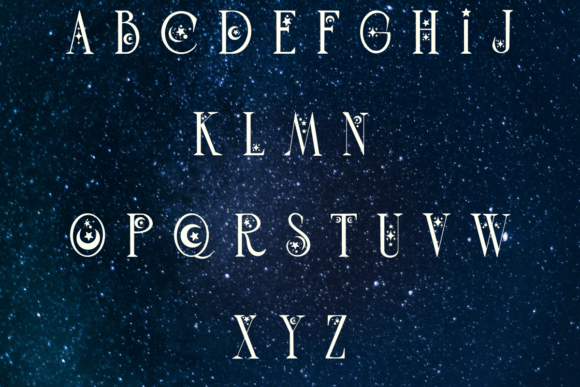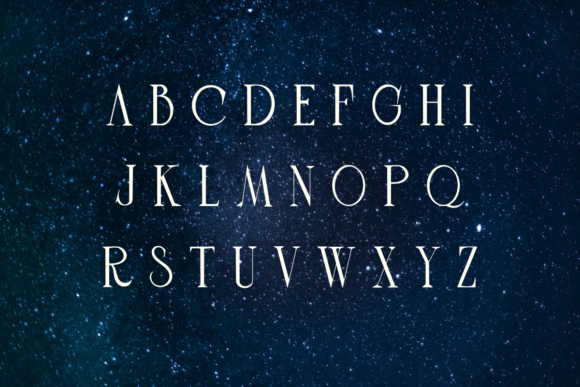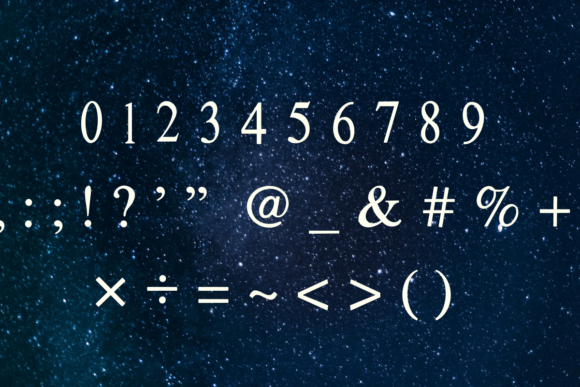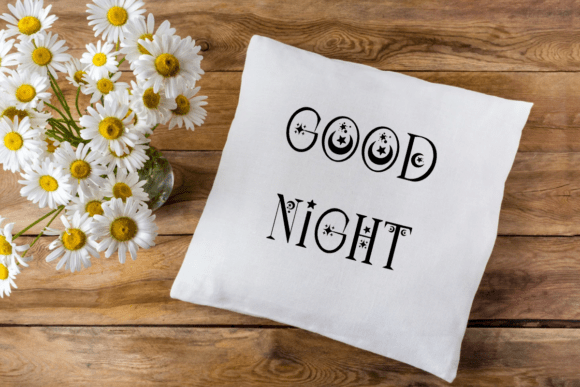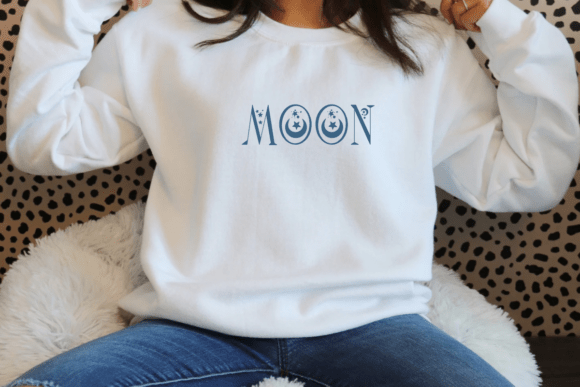
Celestial Pair Font: A Magical Decorative Font for Dreamy Designs
Are you looking for a font that can add a touch of magic to your designs? Look no further than the Celestial Pair Font, a beautiful and whimsical decorative font inspired by the wonders of the night sky. With its charming star, moon, and swirl details integrated into elegant serif characters, this font is perfect for a variety of creative projects.
A Font that’s Out of this World
Celestial Pair Font is a stellar way to add a cosmic touch to your designs. The font’s elegant serif characters are adorned with charming star, moon, and swirl details that evoke the magic and mystery of the night sky. Whether you’re working on a fantasy-themed project, creating a brand identity for an astrology business, or designing a children’s book, this font is sure to impress.
Perfect for Fantasy-Themed Projects
If you’re working on a fantasy-themed project, Celestial Pair Font is the perfect choice. The font’s whimsical and dreamy quality makes it ideal for creating magical and enchanting designs. Use it to create titles, headings, and body text for fantasy novels, games, or movies. The font’s elegant serif characters and charming details will transport your readers to a world of wonder and magic.
Astrology Branding Made Easy
For astrology businesses, Celestial Pair Font is a great way to create a brand identity that’s both elegant and mystical. Use the font to create logos, business cards, and website headers that reflect the magic and mystery of the stars. The font’s celestial details will help you connect with your audience and establish a brand that’s out of this world.
Delightful Children’s Books
Celestial Pair Font is also perfect for children’s books, particularly those with a fantasy or adventure theme. The font’s playful and whimsical quality will delight young readers and add a touch of magic to your story. Use it to create titles, headings, and body text that’s both fun and engaging.
Dreamy Invitations
And for crafters and party planners, Celestial Pair Font is a great choice for creating dreamy invitations that set the tone for a magical celebration. Use the font to create invitations for baby showers, birthday parties, or weddings that are both elegant and whimsical. The font’s celestial details will add a touch of romance and wonder to your designs.
Key Features of Celestial Pair Font
- Elegant Serif Characters: Celestial Pair Font features elegant serif characters that are both classic and sophisticated.
- Charming Celestial Details: The font’s charming star, moon, and swirl details add a touch of magic and wonder to your designs.
- Whimsical and Dreamy Quality: The font’s whimsical and dreamy quality makes it perfect for fantasy-themed projects, astrology branding, and children’s books.
Tips for Using Celestial Pair Font
Here are a few tips for using Celestial Pair Font in your designs:
- Use it Sparingly: While Celestial Pair Font is beautiful, it’s best to use it sparingly to avoid overwhelming your design. Use it for titles, headings, or accents to add a touch of magic.
- Pair it with Other Fonts: Celestial Pair Font pairs well with other fonts, particularly sans-serif fonts. Try pairing it with a clean sans-serif font for a beautiful contrast.
- Experiment with Colors: The font’s celestial details look beautiful in a range of colors, from soft pastels to rich jewel tones. Experiment with different colors to find the perfect look for your design.
In conclusion, Celestial Pair Font is a magical decorative font that’s perfect for designers and crafters looking to add a touch of magic to their designs. With its elegant serif characters, charming celestial details, and whimsical quality, this font is sure to impress. Whether you’re working on a fantasy-themed project, creating a brand identity for an astrology business, or designing a children’s book, Celestial Pair Font is a stellar choice.